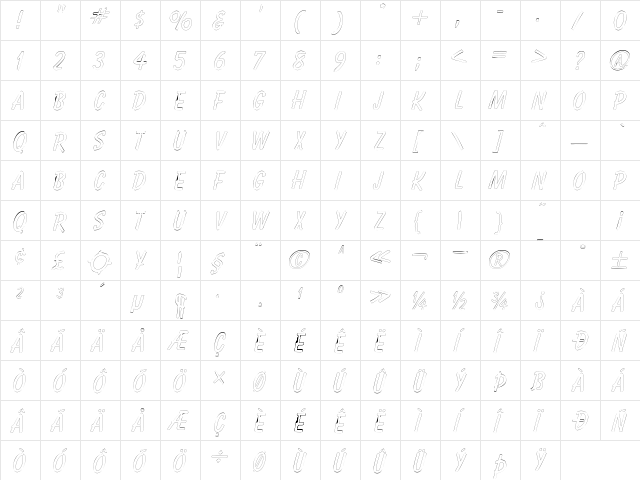
HotAirOutline Regular
Design Context for HotAirOutline Typeface
HotAirOutline brings ornamental detail and strong personality to headlines and identities, where visual impact matters more than quiet functionality.
Font Pairing: Pair with a clean neutral sans-serif for body copy to let HotAirOutline's character lead without overwhelming the composition.
Pro Tip: Use HotAirOutline exclusively at display sizes — it was designed to be seen, not read at length. Let a neutral companion handle body copy.